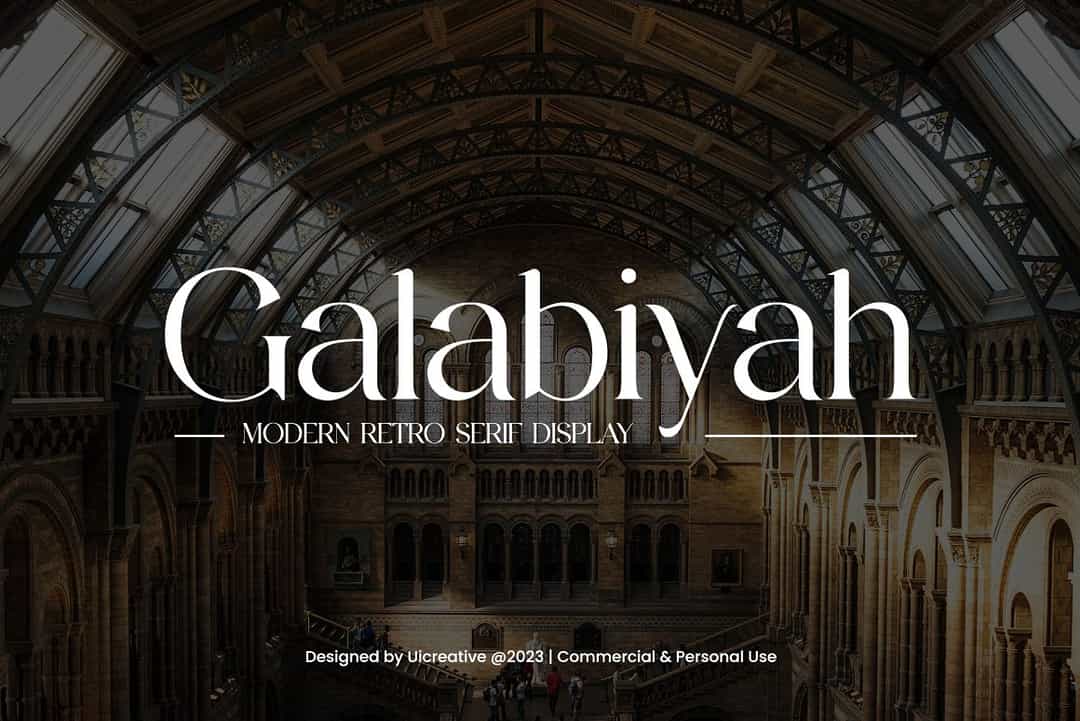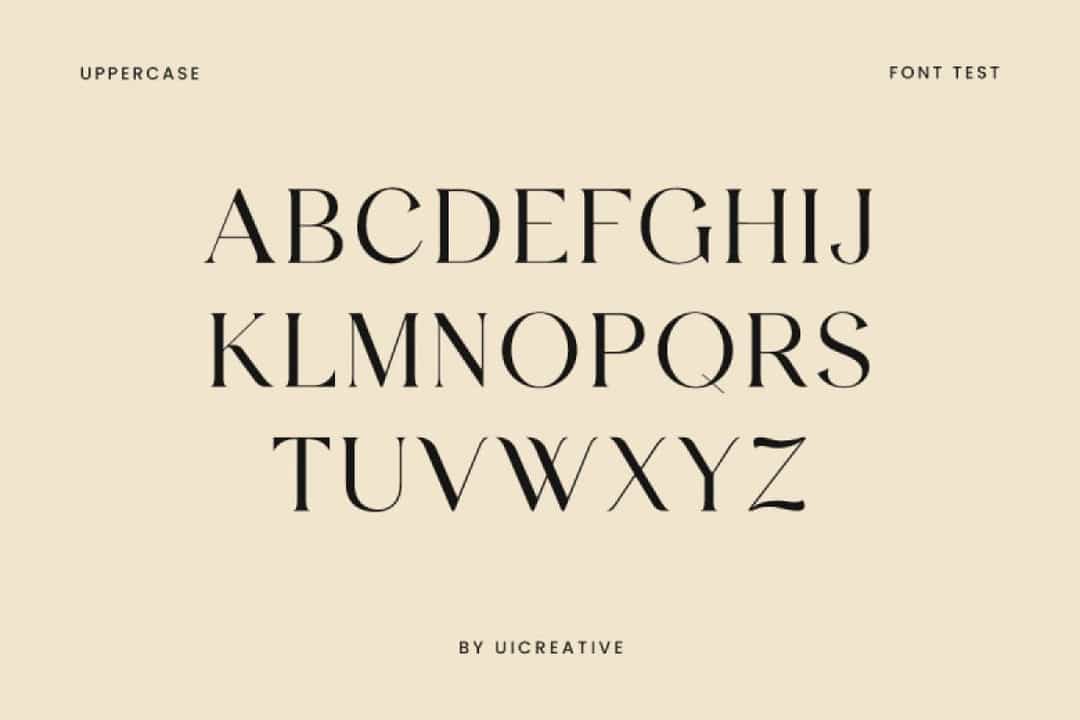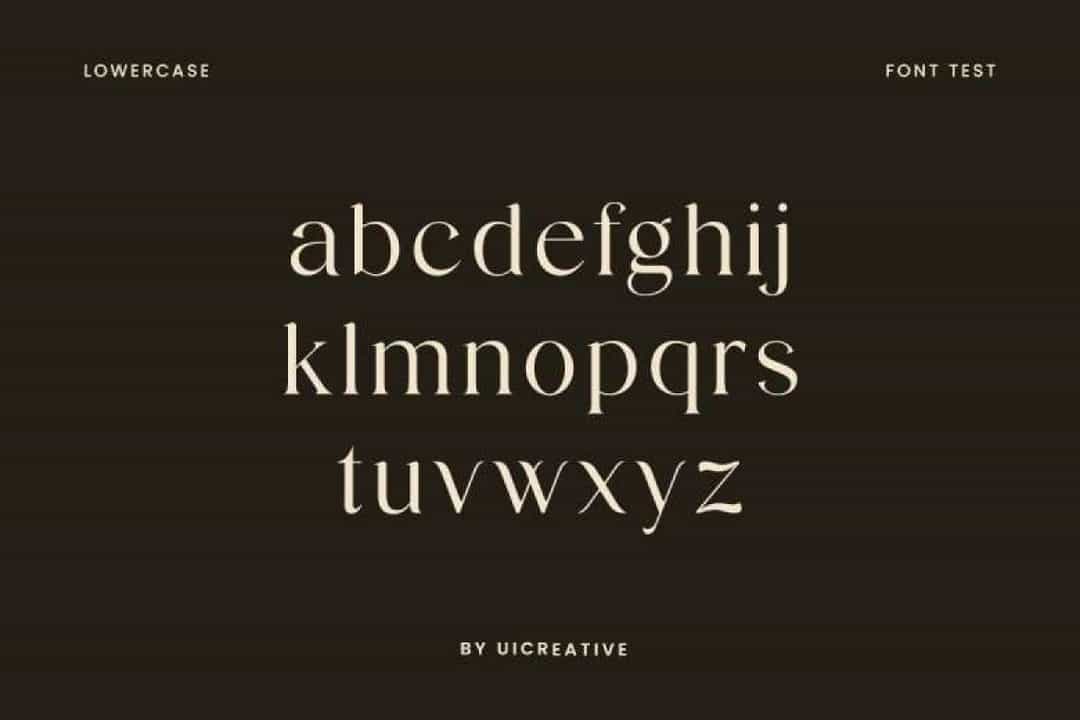
Galabiyah is an elegant and contemporary retro serif font that adds class and flair. Perfect for use in logo design, stationery, signature wedding stationery, typography quotes for book or magazine covers and website headers as well as branding clothing packaging etc, Galabiyah makes for striking editorial designs featuring feminine as well as masculine qualities.